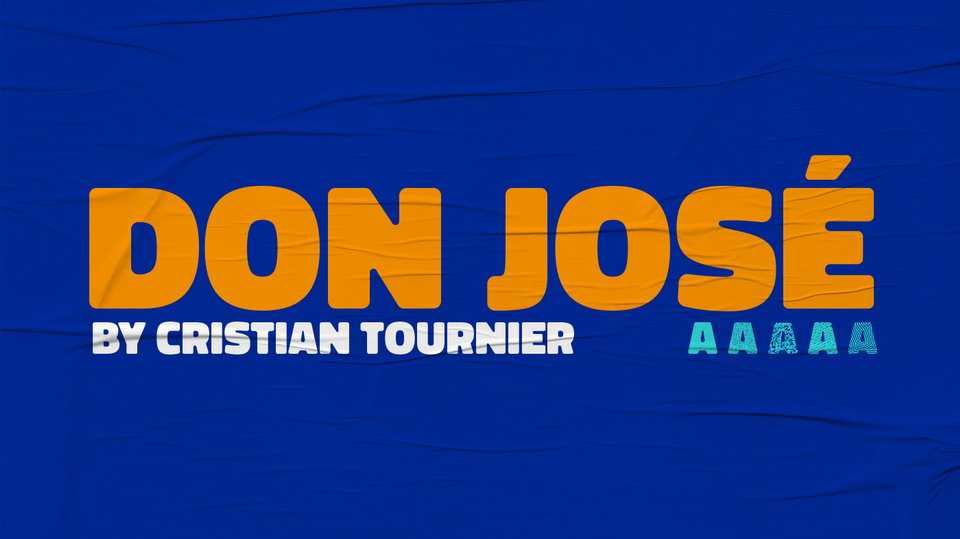
Download Don Jose typeface, a bold sans serif font family in five styles with a high box, designed for holders. The greatest virtue that Don Jose font family presents is the black weight, of all its variants, which makes it interesting for headlines or highlights.
Designer: Cristian Tournier